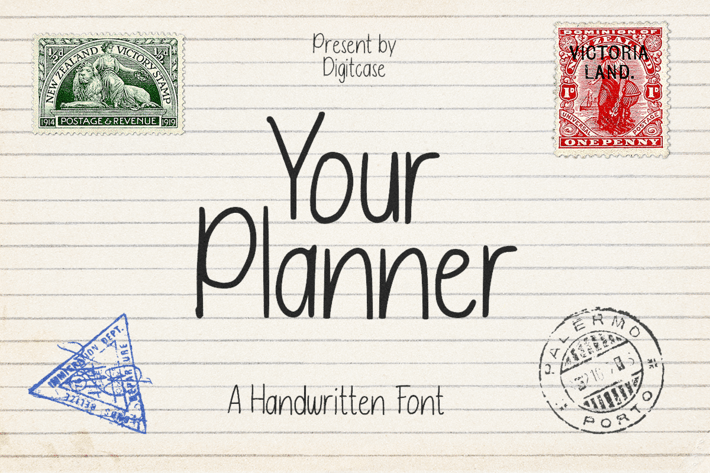
Your Planner a Handwritten Font
Your Planner a Handwritten Font typeface excellent used for the manufacture quote text, logotype, header magazine, planner and many more.
Ligatures & Alternate
Numeral & Punctuations